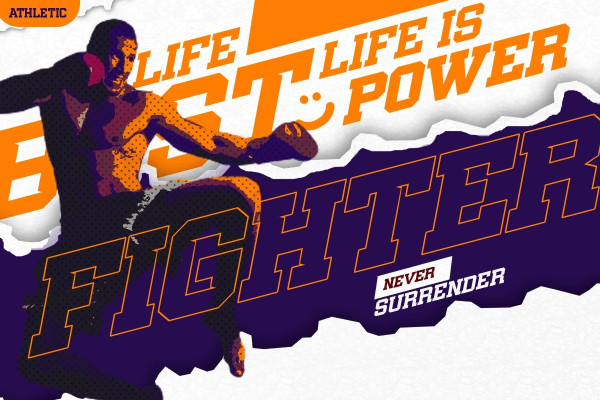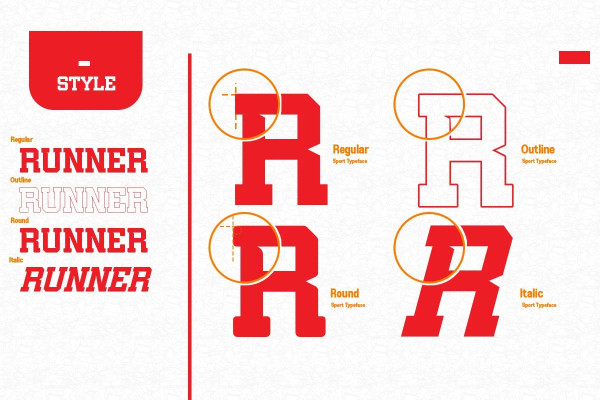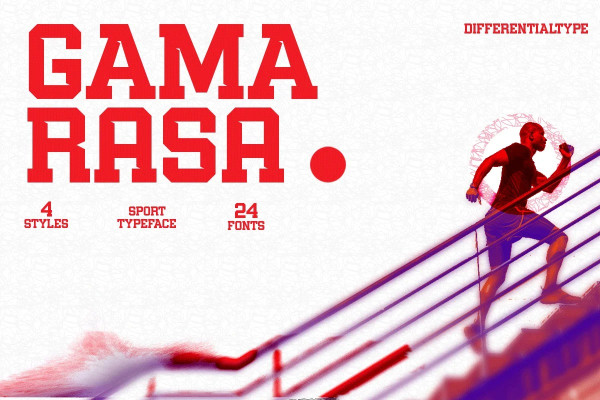
Gamarasa Font
Gamarasa Font is a bold and robotic styled slab display font. It is suitable for logotype, headline font, in corporate identity, brand identity, apparel industry, poster, music, movie, game, magazine, book, comic, cartoon, YouTube, Instagram, website, or any of your creative design projects.
Classification: Display Fonts, Slab Serif Fonts